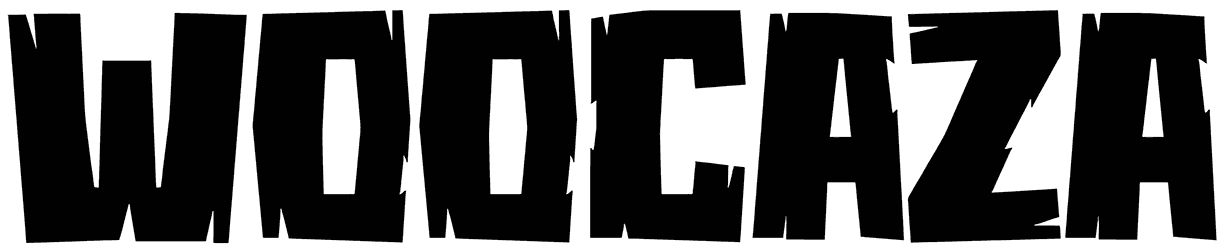
Woocaza Font
A creative idea with a playful and bold style will result in hooking a lot of visitors, and this wood font can easily do it. Woocaza font has large and eye-catching characters that would be a nice item for many layouts, like a summer camp poster. Try this display font for your next project and highlight your innovative talent.